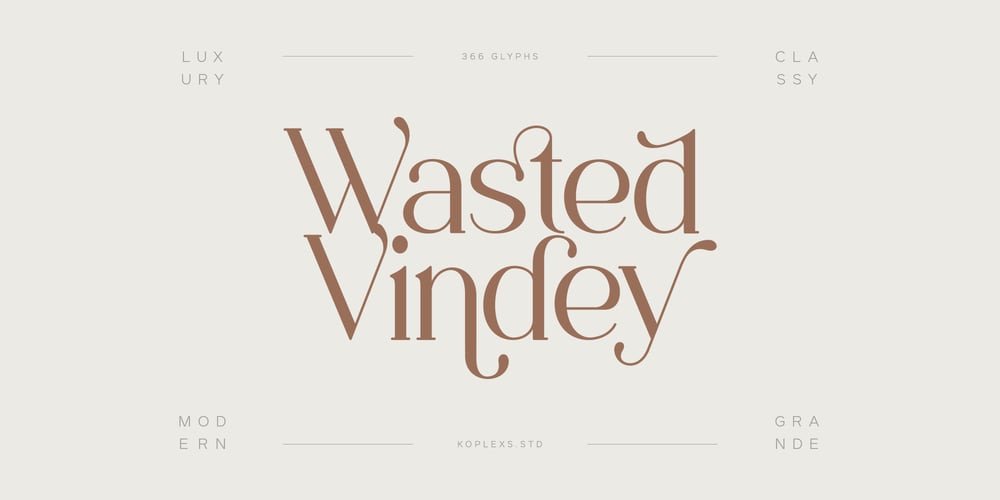
Wasted Vindey Font Family was designed by Ahmad Muslimin and published by Koplexs Studio. Wasted Vindey contains 1 styles and family package options. Wasted Vindey – Classy Serif FontWasted Vindey font is a collection of modern, Classy, feminine, beautiful and classy characters, giving you a unique look for any branding or design need.Wasted Vindey font has a blend of beauty and classy feel, which has a variety of uses but is primarily intended for logos, social media posts, advertisements, product packaging, product designs, label, photography, watermark, stationery, book covers, perfumes, fashion magazines, or invitations. Not only will you find lots of decorative characters, but also the number of unique alternative characters will make you fall in love with this font.